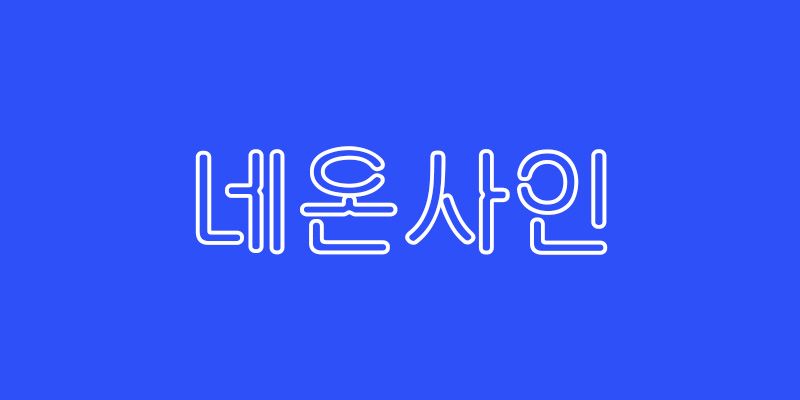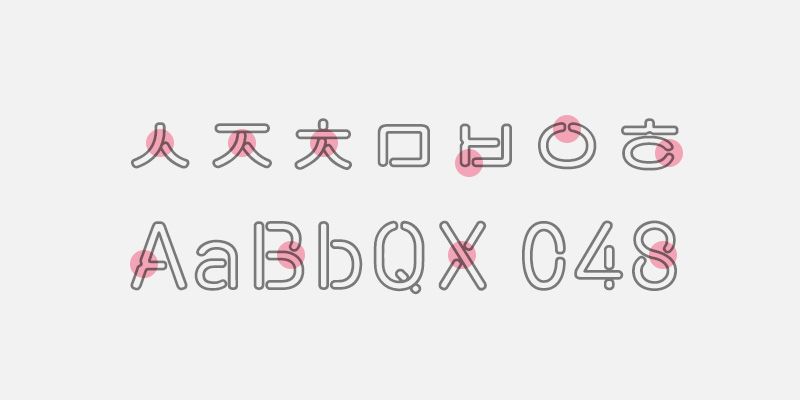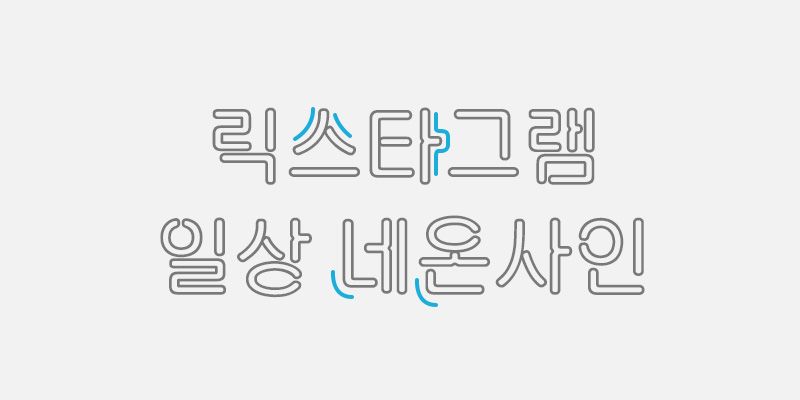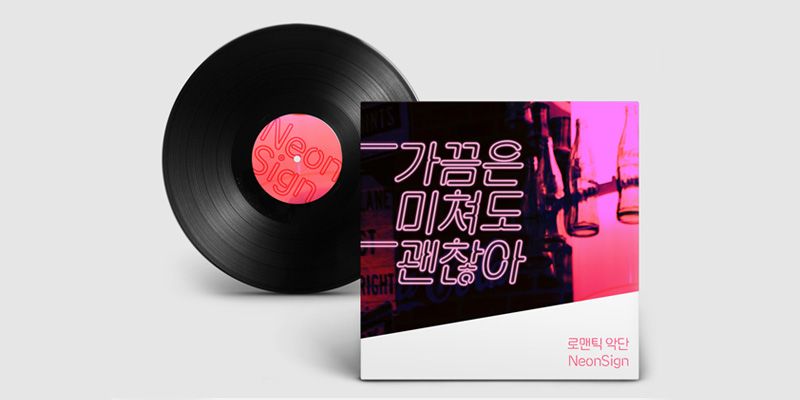
RixNeonSign consists of lines cut like the neon lights. Used connected lines and bending details to express the neon wires. The snapped letters are to maximize the features of neon sign.